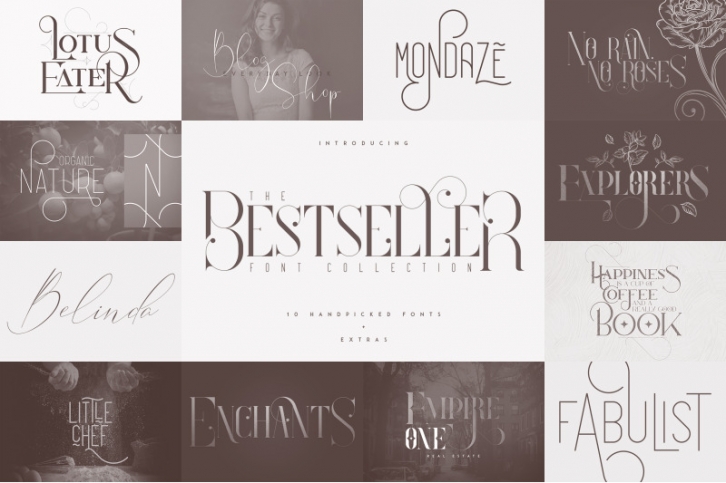
Introducing   The Bestseller Font Collection - 10 fonts in 6 typefaces + Vector Illustrations
The Bestseller Font Collection is elegant, vintage collection loaded with 10 serif, display and script fonts, vector illustrations and multilingual support. They are very versatile fonts that works great in large and small sizes.
This collection is perfect for branding projects, home-ware designs, product packaging, magazine headers - or simply as a stylish text overlay to any background image.
1. Lotus Eater - Vintage Font + Extras
• Uppercase,lowercase, numeral,punctuation & Symbol
• Tons of alternative glyphs
• 52 Ornaments
• Multilingual support
1. Mondaze Typeface - 4 Weights
• Uppercase,lowercase, numeral,punctuation & Symbol
• Light
• Regular
• Bold
• Black
• Tons of alternative glyphs
• Clean
• Rounded
• Multilingual support
1. Explorers - Serif font + Extras
• Explorers serif font with tons of alternative glyphs, ligatures and multilingual support
1. Fabulist - Display font
• Uppercase,lowercase, numeral,punctuation & Symbol
• Regular
• Tons of alternative glyphs
• Multilingual support
1. Enchants - Magical font + Extras
• Uppercase, numeral,punctuation & Symbol
• 3 animal designs and nature elements ( black and in color )
• Cyrillic support - Russian, Ukrainian, Bulgarian and more
• Alternate glyphs
• Multilingual support
1. Belinda Script - Regular and Italic
• Uppercase,lowercase,numeral,punctuation & Symbol
• Multilingual
• Regular
• Italic
• Alternatives
• Ligatures ll, il, it, ul, al, at, ch, ck, cl, ct, nt, re, rr, ee, el, et, sh, sl, ss, th, ff, st
• Natural feel